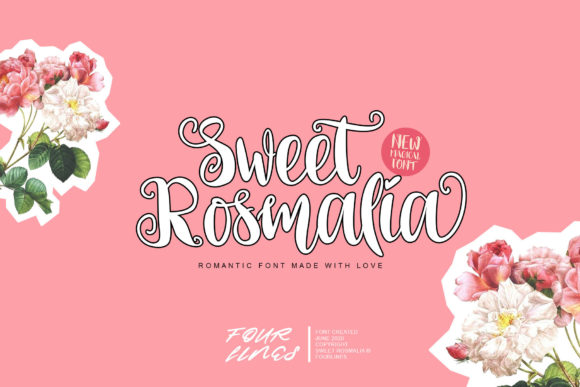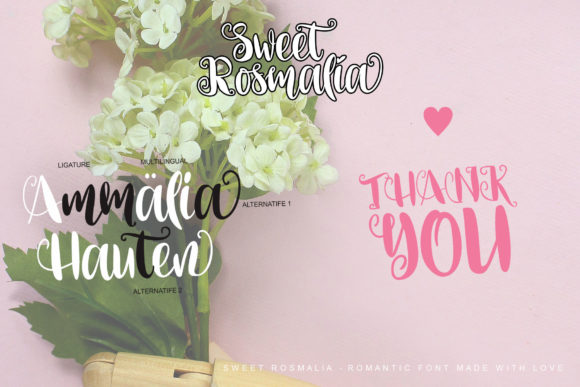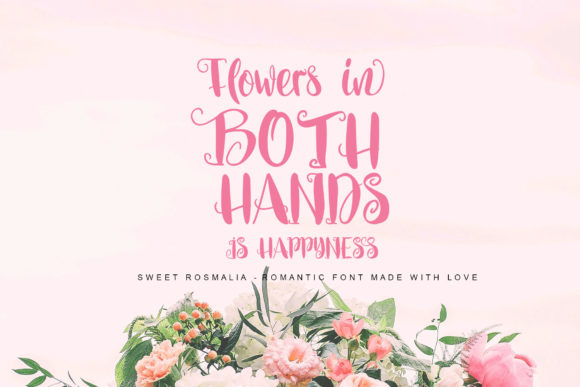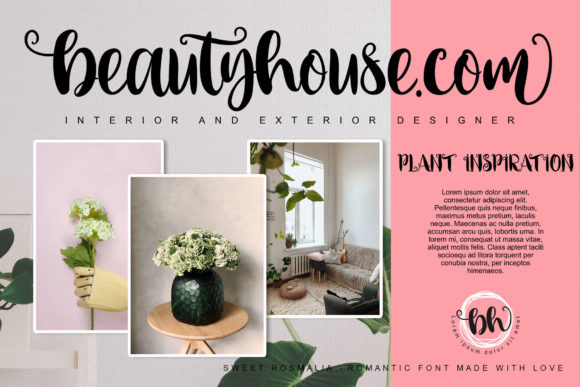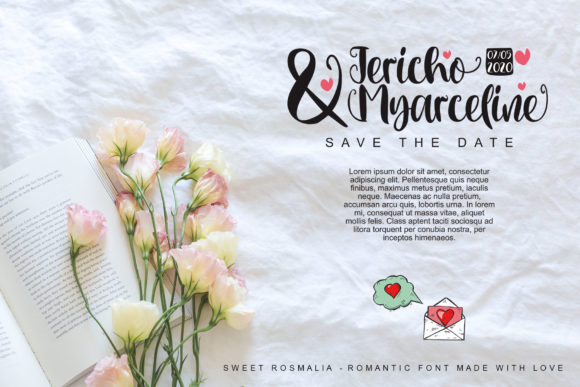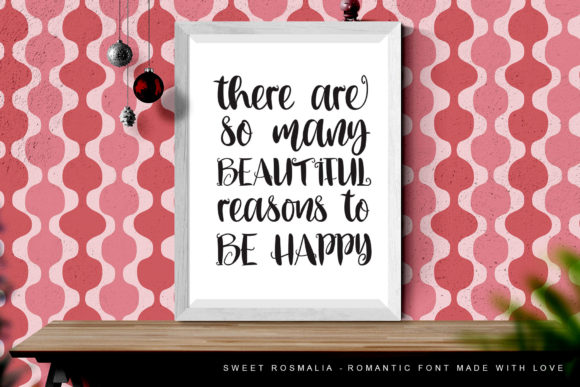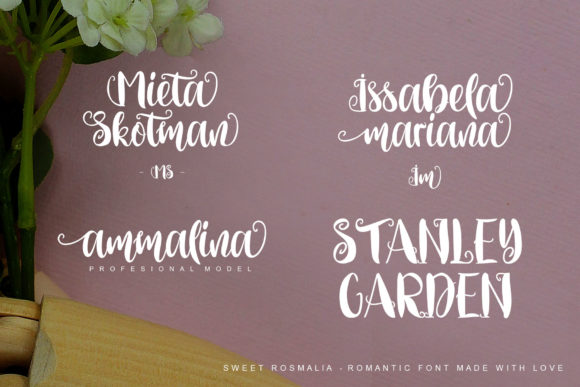
Sweet Rosmalia Font
About Sweet Rosmalia Font
Sweet Rosmalia is a sweet, soft hand-lettered handwritten font. Fall in love with its authentic feel and use it to create gorgeous wedding invitations, beautiful stationary art, eye-catching social media posts, and cute greeting cards.